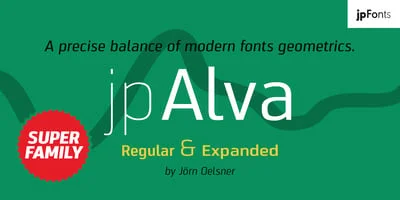
JP Alva Font
JP Alva Font is perfect for modern corporate branding, tech startup logos, architectural firm presentations, minimalist website designs, contemporary art galleries, fashion magazines, industrial design portfolios, urban development projects, creative agency materials, and any project requiring clean, sophisticated typography with professional appeal.
What makes JP Alva Font exciting is its perfect balance of contemporary elegance and functional clarity that speaks to modern design sensibilities. The typeface features precise geometric construction with subtle humanist touches that create warmth without sacrificing professionalism. Its refined character design communicates intelligence, innovation, and forward-thinking vision, making it an ideal choice for businesses and creatives who want to project competence, reliability, and cutting-edge expertise through their visual communications.
JP Alva Font family includes light, regular, medium, and bold weights with complete character sets featuring uppercase and lowercase letters, numerals, punctuation marks, and extended Latin support. The typeface incorporates carefully optimized spacing and kerning that ensures exceptional readability across all applications, from large display headlines to detailed body text.
Whether you're developing startup brand identity, creating professional presentations, or designing editorial layouts for industry publications, JP Alva Font delivers the typographic foundation that builds credibility and trust. The font's versatile sophistication makes it particularly effective for B2B communications, corporate reports, and professional services marketing. Its clean aesthetics translate seamlessly across digital platforms and print media, ensuring your brand maintains consistent, polished appearance that resonates with decision-makers and establishes authority in competitive markets.